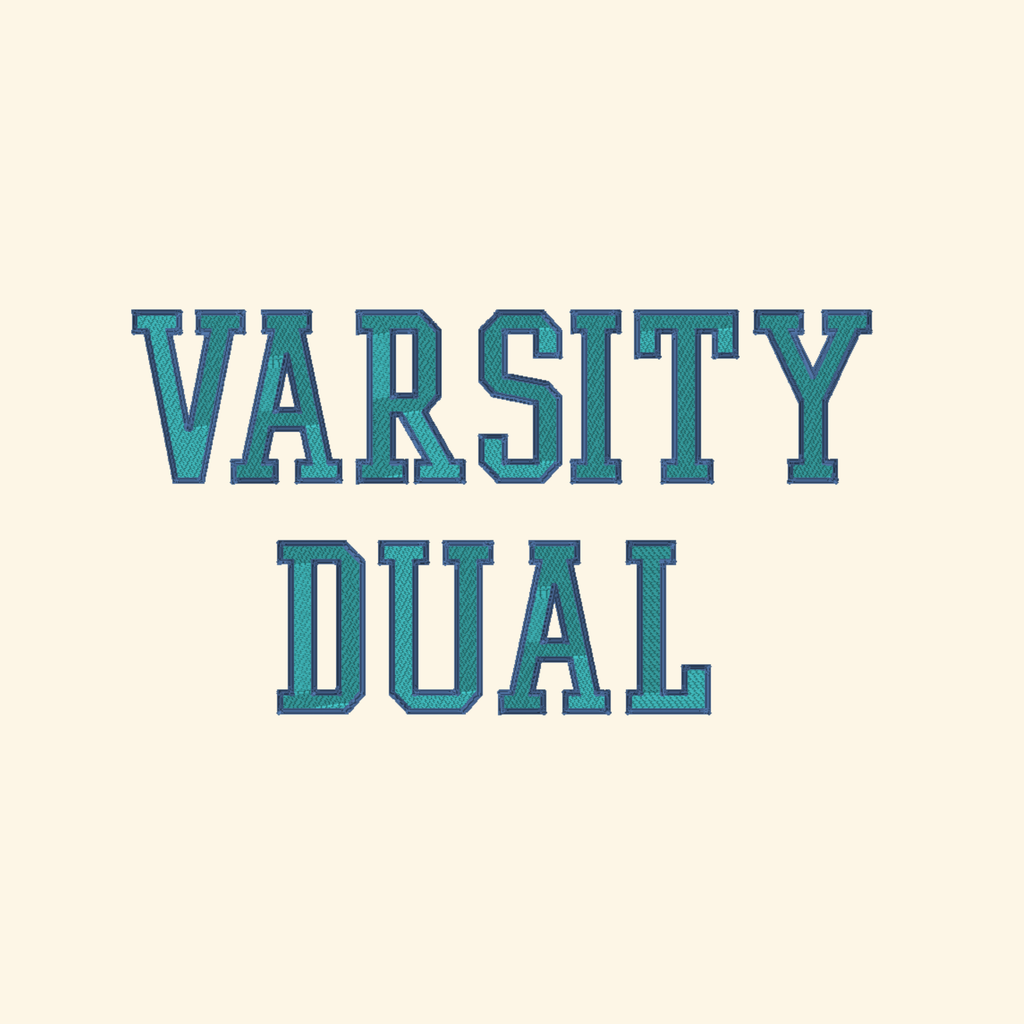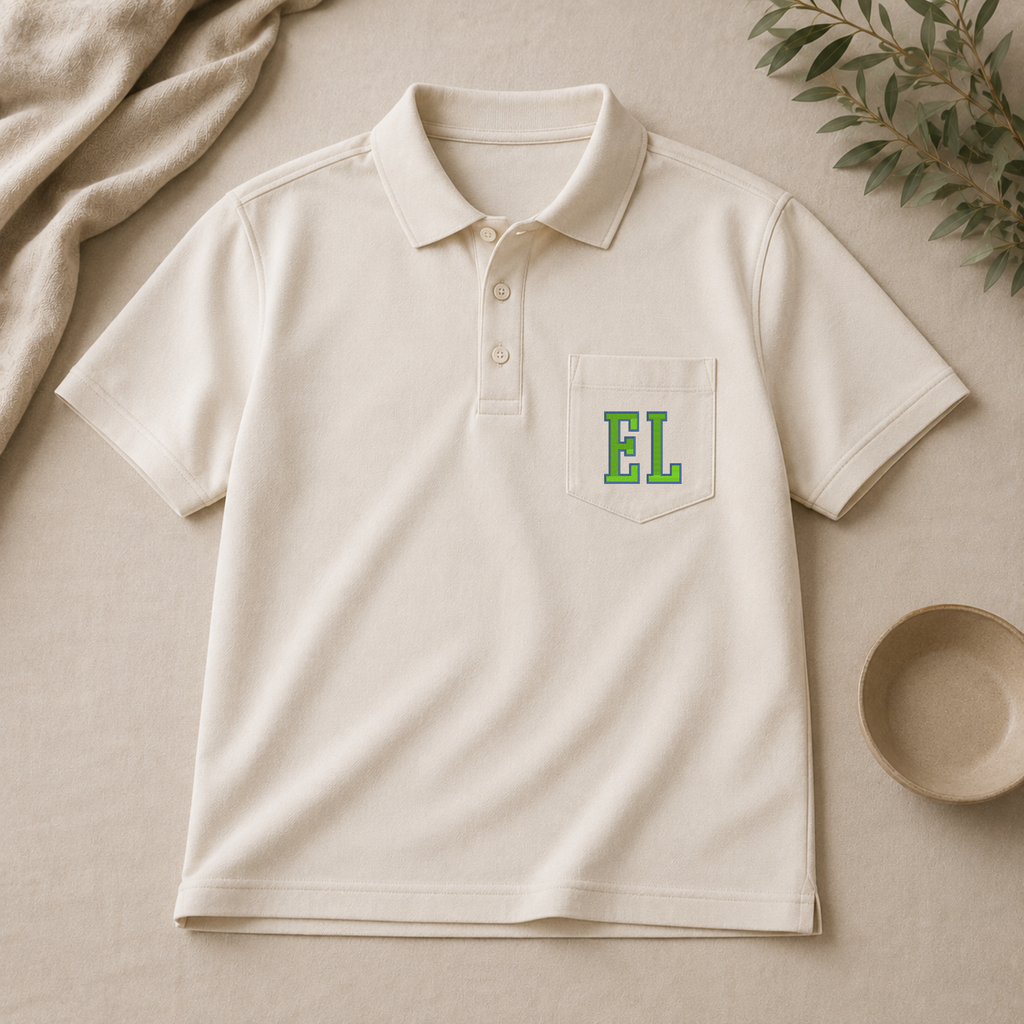
BX font - Varsity dual color, Monogram embroidery font, Sport font, Machine embroidery
🪡Varsity dual color - premium embroidery font (BX format only).
Take your projects to the next dimension with this professional machine embroidery alphabet! Specially digitized for high-impact results, this font is the perfect choice for creating any item that requires embroidery.
Full Alphabet (uppercase A–Z)
Numbers (0-9)